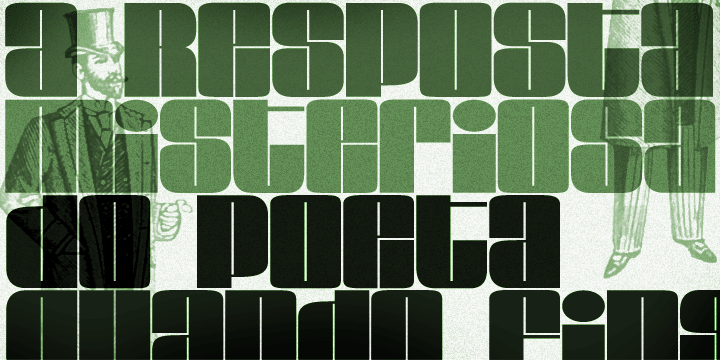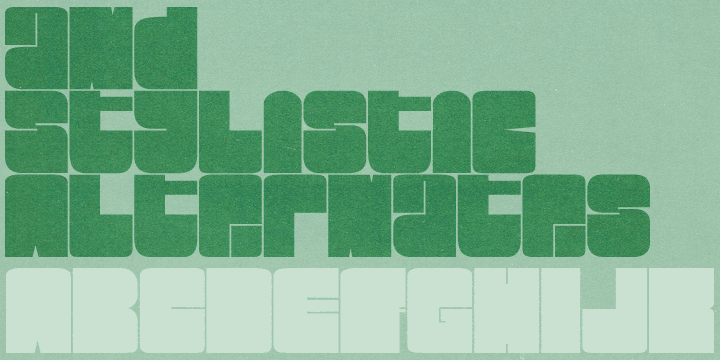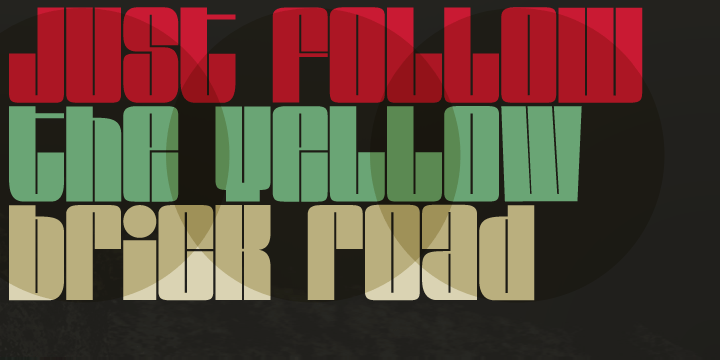
Loudine Vintage Font.
The Loudine font designed by Ricardo Marcin and Erica Jung is a perfekt decorative retro display typeface. It’s a great choice for vintage inspired poster designs, book covers and striking magazine headlines. Loudine includes two weights + several stylistic alternates. You just need to turn on the feature in an OpenType savvy program.